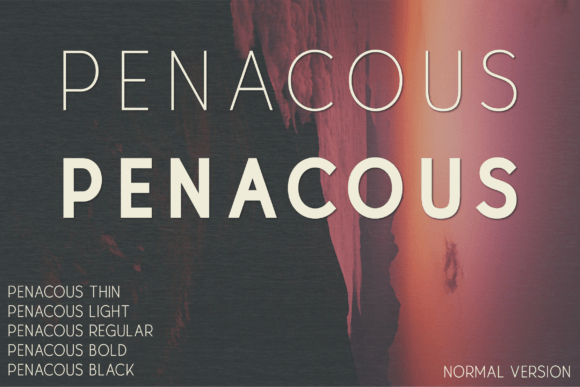
In the realm of typography behold a masterpiece that harmonizes sophistication with simplicity: Penacous Font Family. The brainchild of Nan Design, this sans serif symphony is an ode to modern luxury.
Let Penacous elevate your creative visions, whether you seek a sleek logo, a captivating poster for your cinematic masterpiece, or a magazine spread that exudes timeless elegance. Its crisp lines and graceful curves were meticulously crafted to evoke an air of sophistication and minimalism.
With five distinct weights, Penacous gracefully adapts to any design endeavor. From delicate hairlines to bold powerhouses, this font family effortlessly commands attention. Whether your project demands a whisper or a roar, Penacous delivers with unwavering precision.
Step into a world of boundless creativity, where Penacous transforms your ideas into visual masterpieces. Let your designs exude an ageless charm, capturing the essence of timeless elegance. Embark on this typographic journey and witness the extraordinary impact of Penacous.
Discover the allure of Penacous Font Family today and unlock the gateway to boundless inspiration. Experience the transformative power of typography and elevate your designs beyond the ordinary.